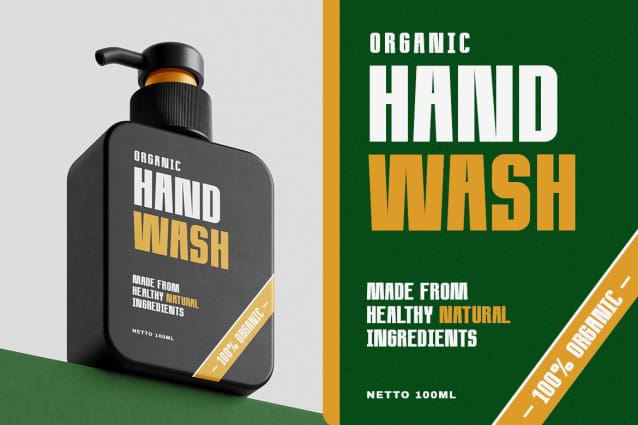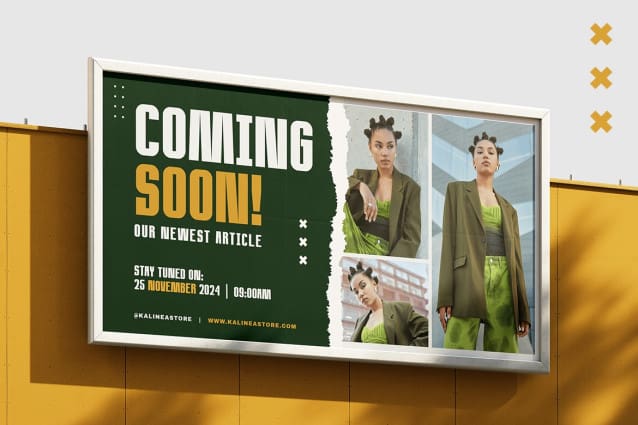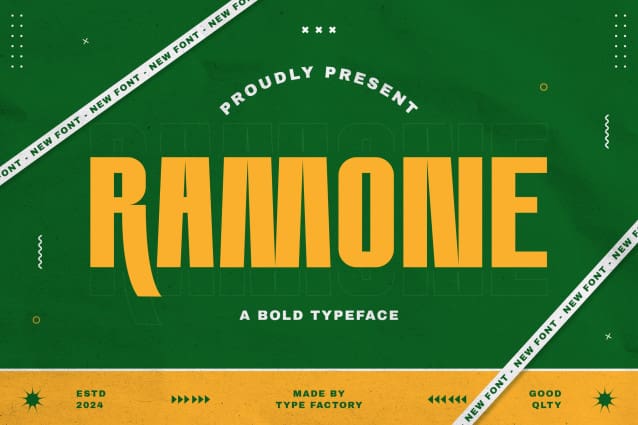
Ramone Font
Ramone Font is a powerful and bold typeface designed to leave a lasting impression. With its strong, commanding letters and clean lines, Ramone is perfect for headlines, branding, posters, and any design that requires a confident presence. Its versatility allows it to work seamlessly across a variety of applications, from print to digital. Ramone’s modern and timeless aesthetic ensures your messages are communicated with clarity and style, making it a great choice for any project looking to stand out.